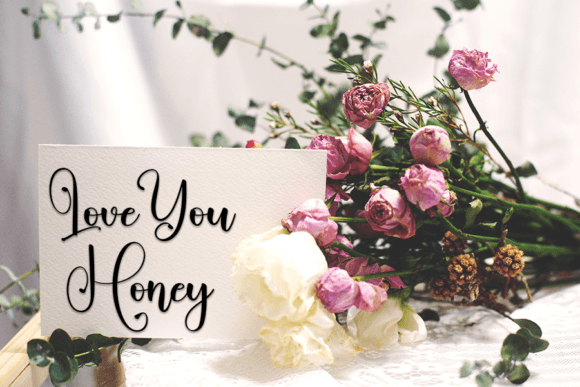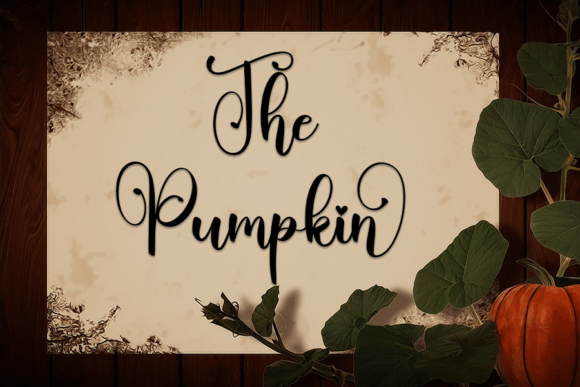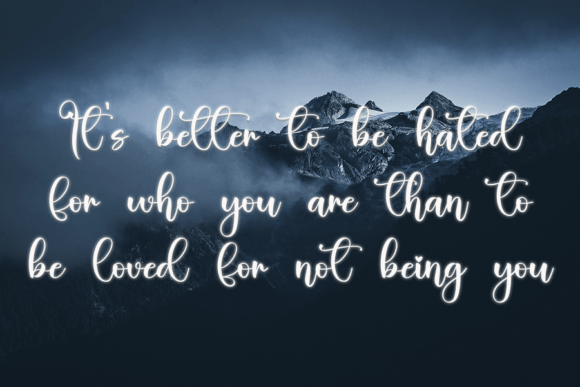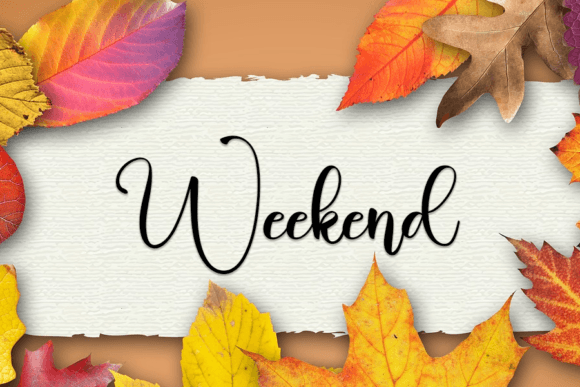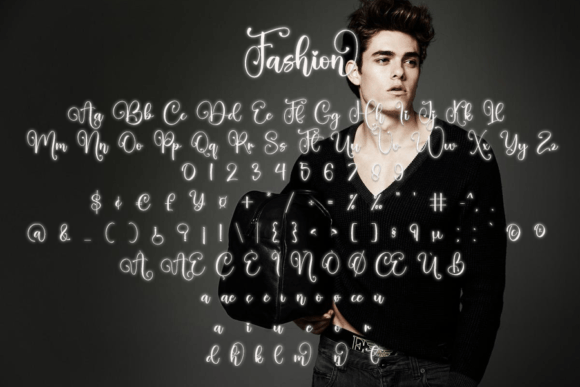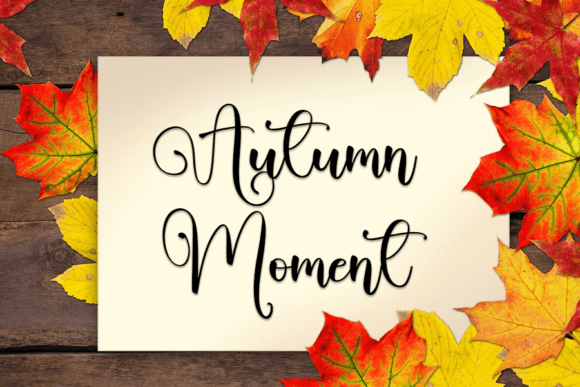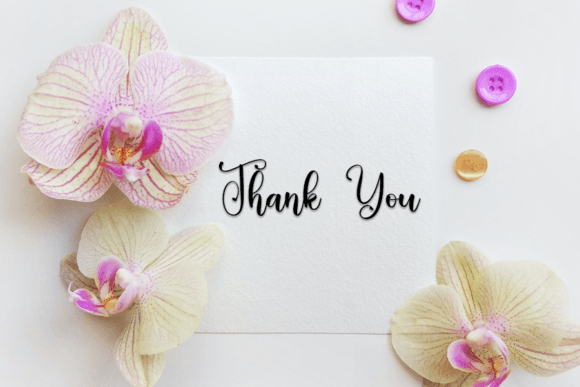
About Fashion Font
“Fashion” is a chic handwritten script font that seamlessly blends a modern sensibility with impeccable form, drawing inspiration from the timeless beauty of classic calligraphy. This font strikes a harmonious balance, offering a diverse and well-balanced design that is sure to elevate the visual appeal of your creative projects.
One of the standout features of “Fashion” is its ability to capture the essence of classic calligraphy while infusing it with a contemporary twist. The font’s meticulously designed characters and clean lines pay homage to the elegance of traditional calligraphy, while its polished and modern appearance adds a fresh touch.
“Fashion” boasts a well-balanced design that is neither excessively thin nor overly thick. This equilibrium ensures that “Fashion” is a versatile choice suitable for a wide range of design applications. Whether you’re working on print materials, digital graphics, websites, or any other creative endeavor, “Fashion” adapts seamlessly to your needs.
The meticulous craftsmanship and impeccable execution of “Fashion” make it a perfect choice for projects where aesthetics and visual impact are paramount. It excels in crafting invitations for special events, creating logos that exude sophistication, or simply enhancing the overall visual appeal of your content.
Furthermore, “Fashion” is more than just a font; it’s a design asset that exudes character and charm. Its handwritten appearance adds a personal and authentic touch to your projects, making them feel stylish and inviting. It’s an excellent choice when you want to inject a sense of contemporary elegance into your work.
In conclusion, “Fashion” is a remarkable handwritten script font that effortlessly marries classic calligraphy with modern design. Its ability to strike a perfect balance between tradition and modernity, its adaptability to various creative projects, and its capacity to infuse a personal touch into your designs make it an invaluable addition to your font collection. Elevate your projects with the stylish elegance and modern vibe of “Fashion” β a font meticulously designed to enhance the beauty of your creations.